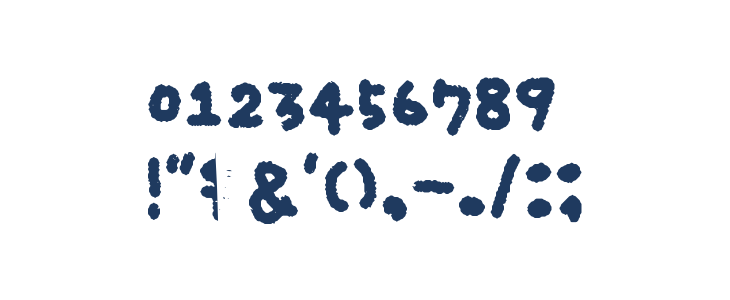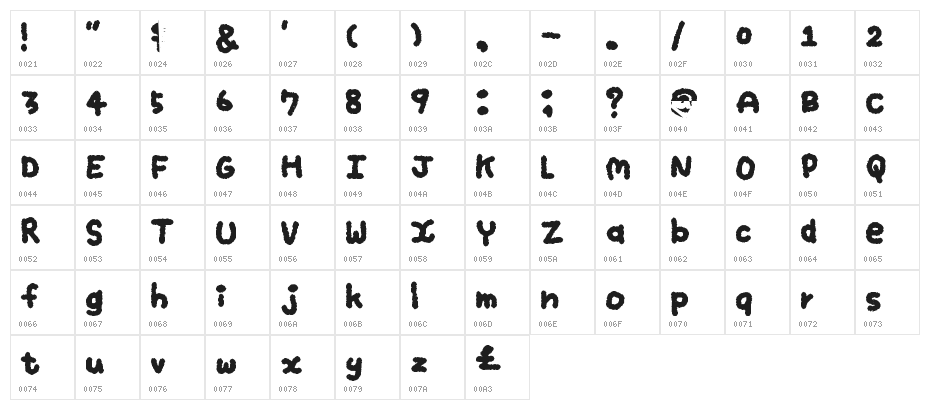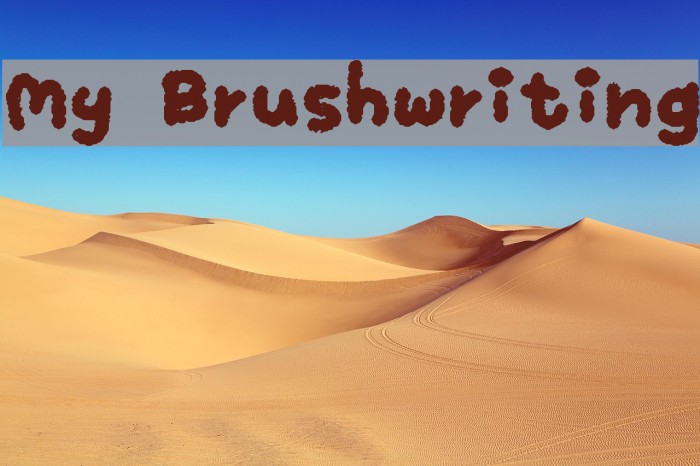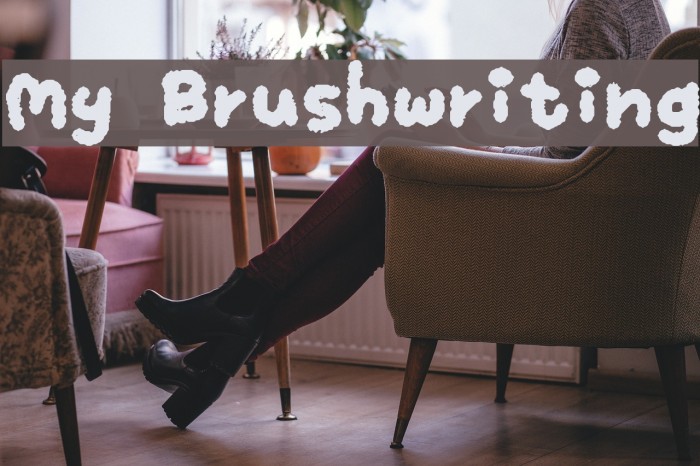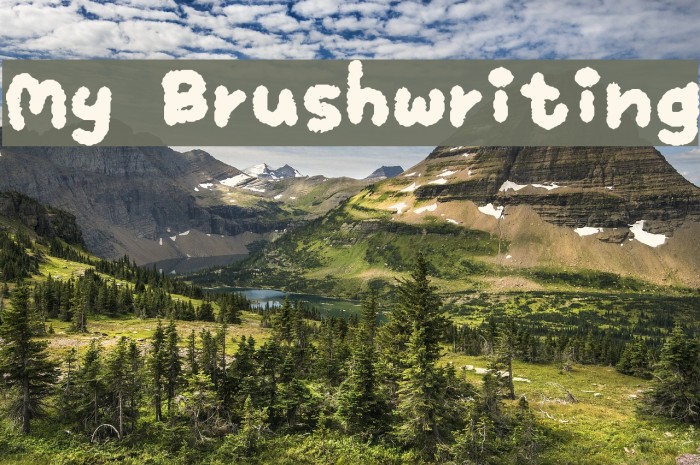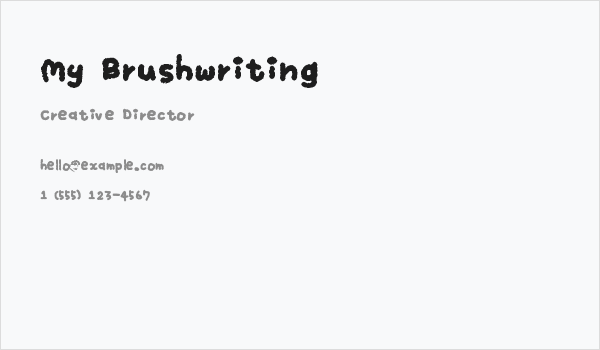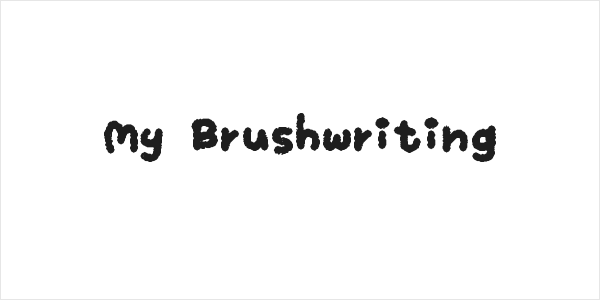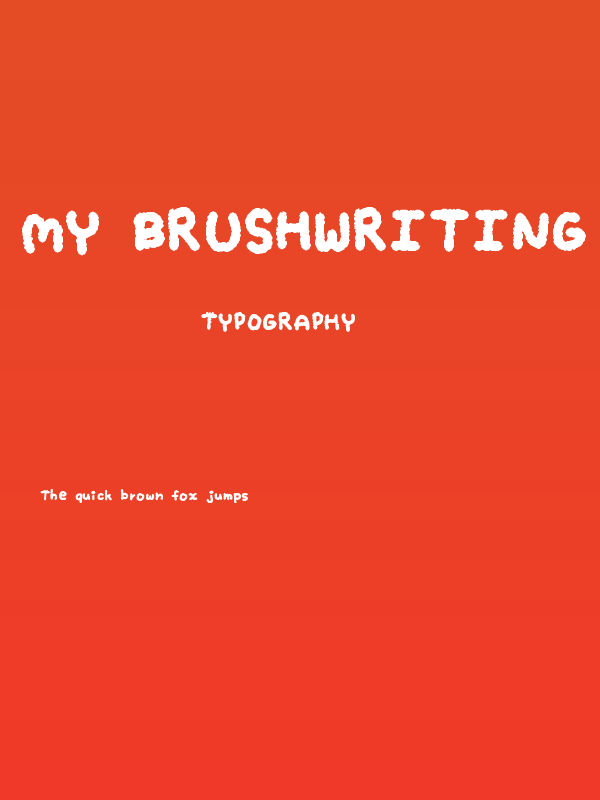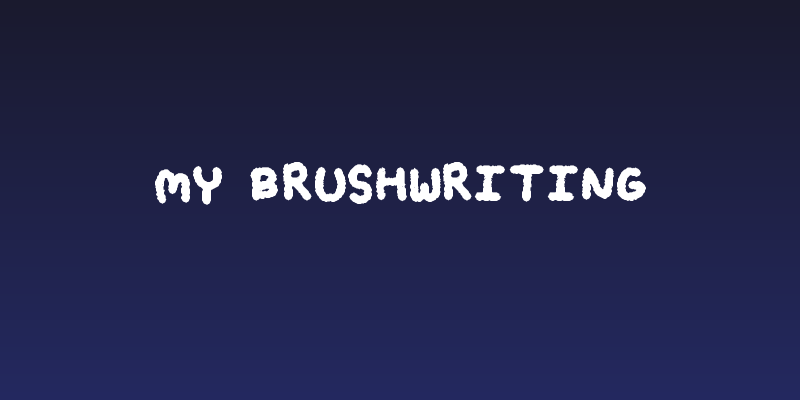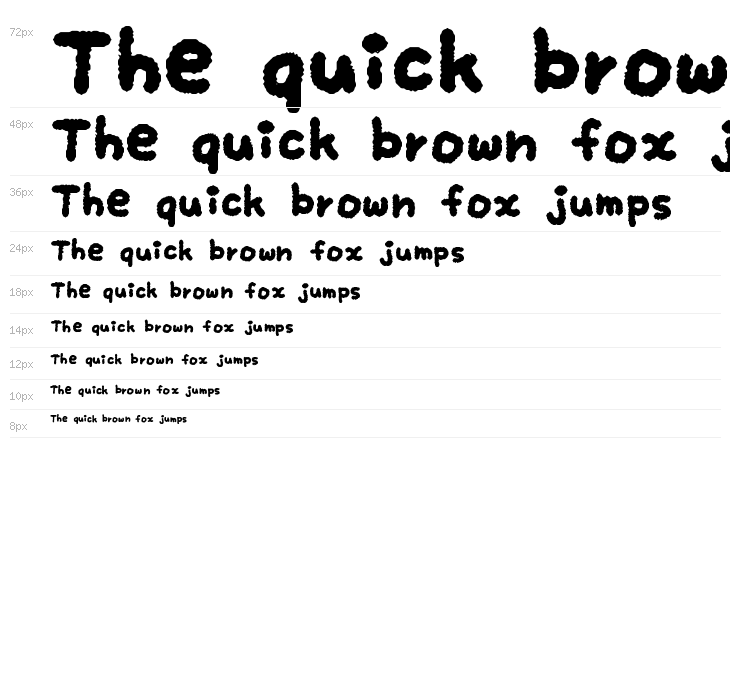
My Brushwriting Font
My Brushwriting Description
This font exhibits a bold and expressive brushstroke style, characterized by its thick, uneven lines and organic, hand-drawn appearance. The letters have a playful and dynamic quality, with a slightly irregular baseline that adds to its casual and artistic feel. The overall texture is rough, giving it a tactile, almost painted look. This font is highly legible despite its decorative nature, making it suitable for various creative applications. The numbers and special characters maintain the same stylistic features, ensuring consistency across all glyphs.
| Proposed Projects | Ideal for creative projects such as posters, invitations, branding, and packaging where a playful and artistic touch is desired. |